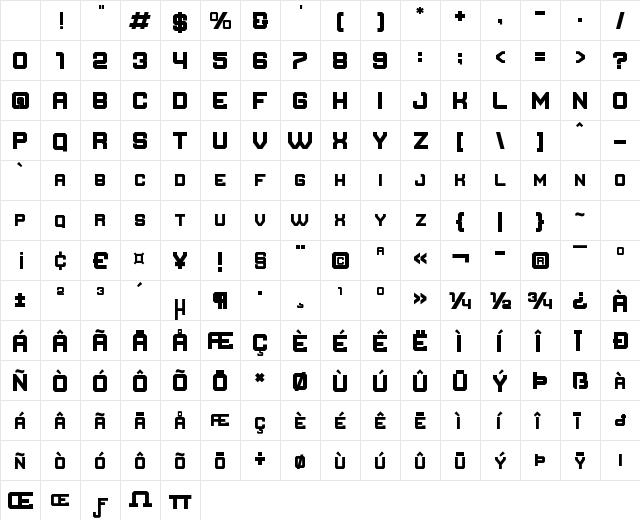
Esportiva brings high-energy athletic personality to the page - its confident, muscular forms are built for impact.
Pro Tip: Use Esportiva in all-caps headlines where its athletic energy can fully express itself. Pair with a solid, simple sans for supporting text.